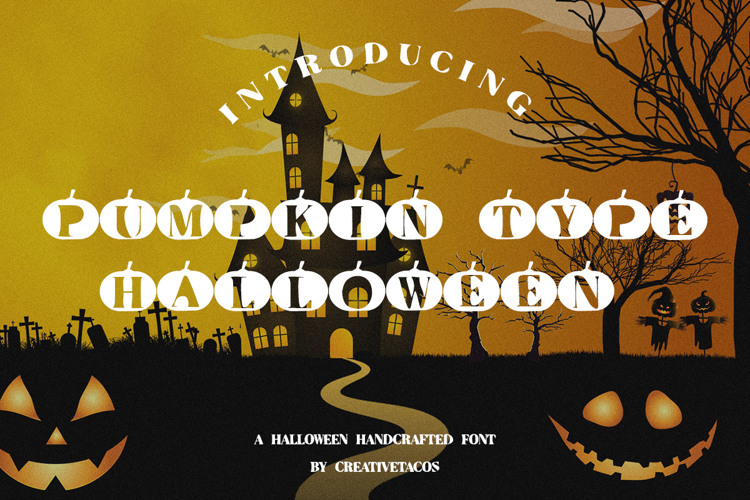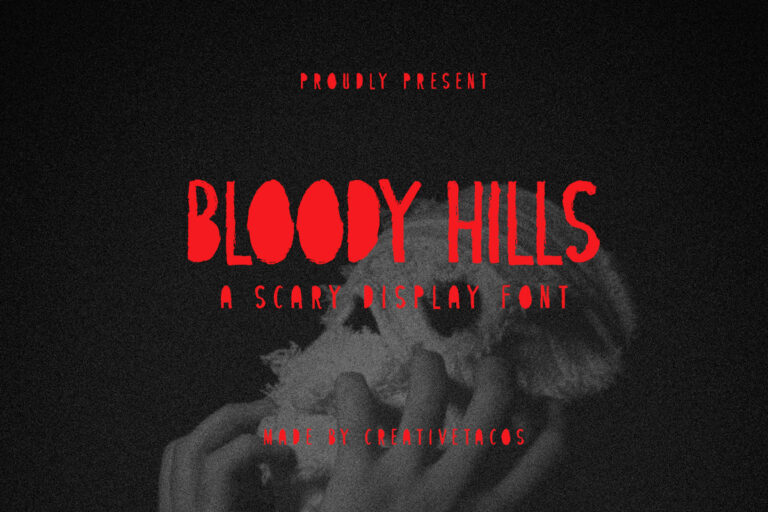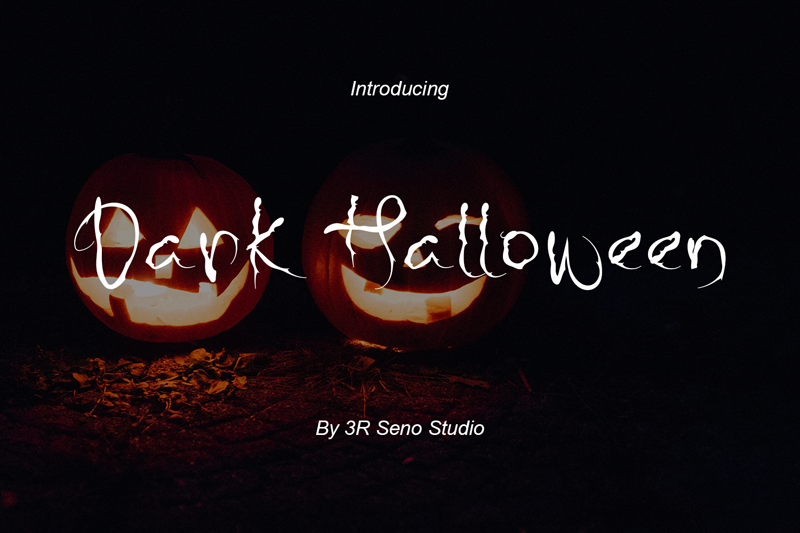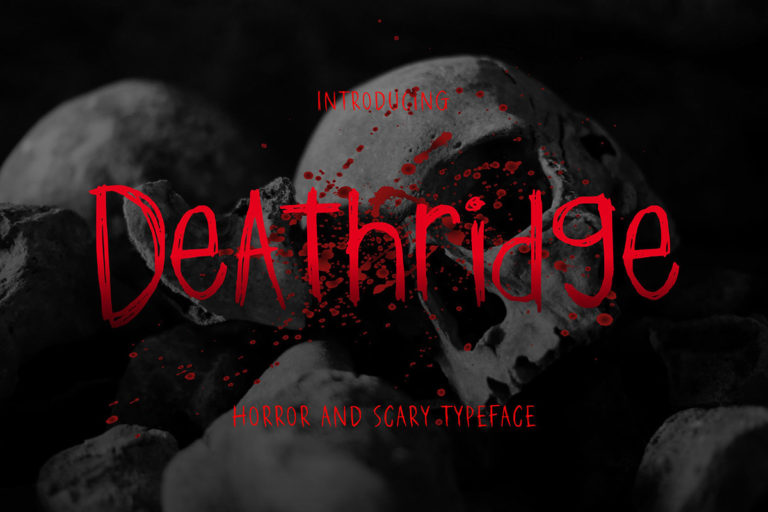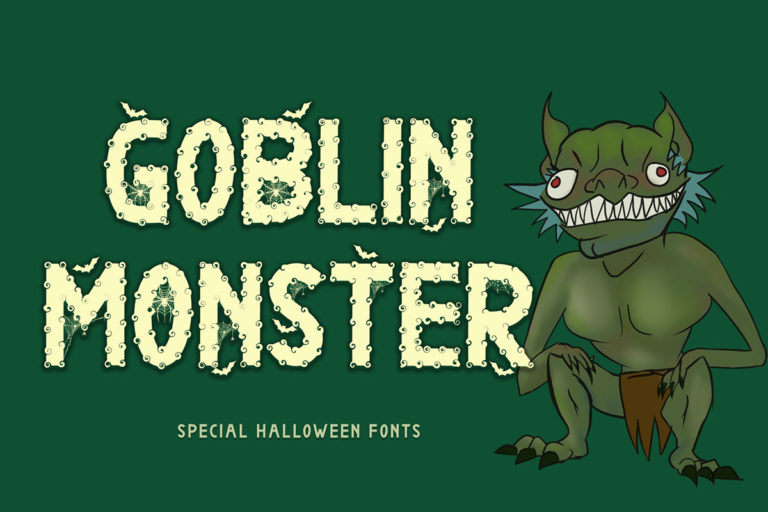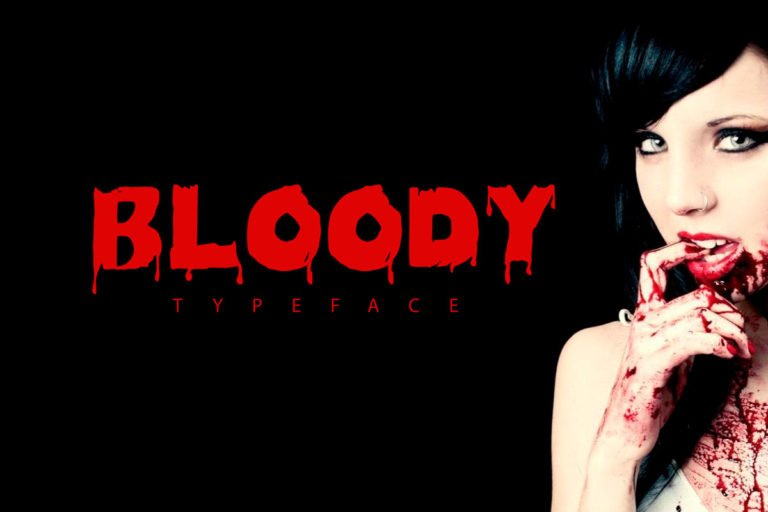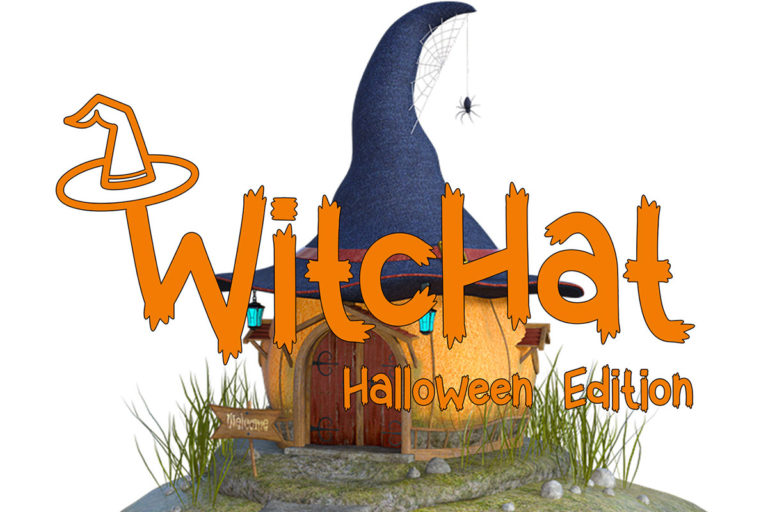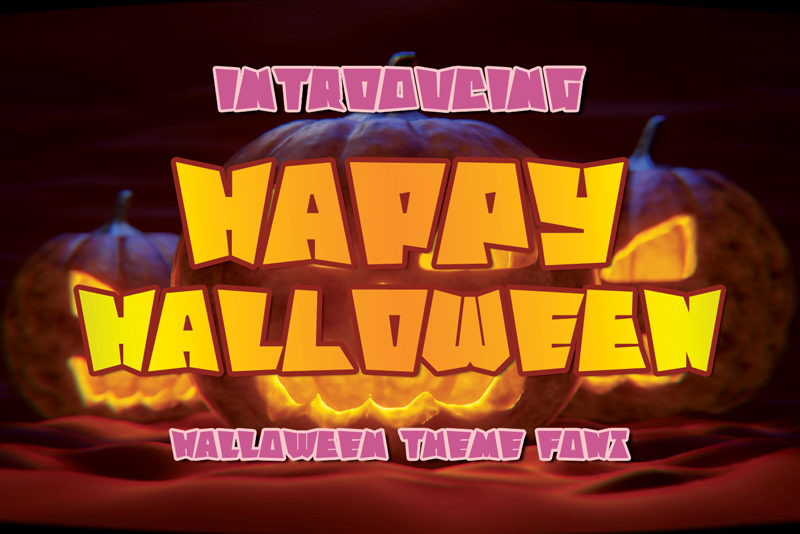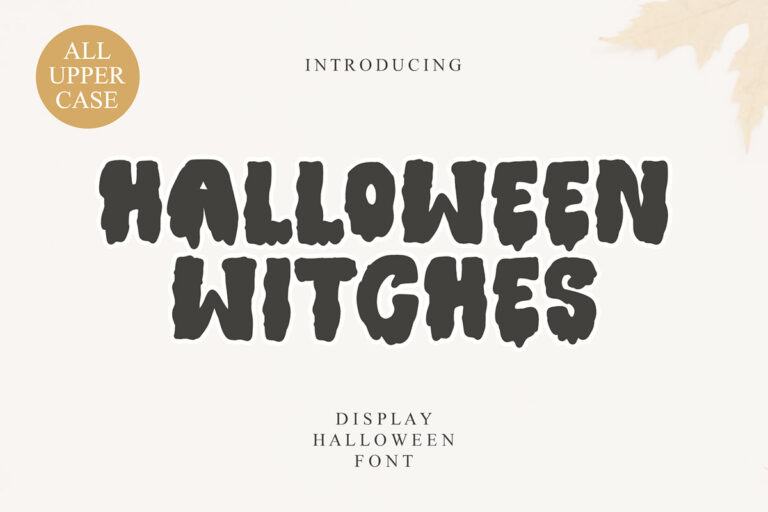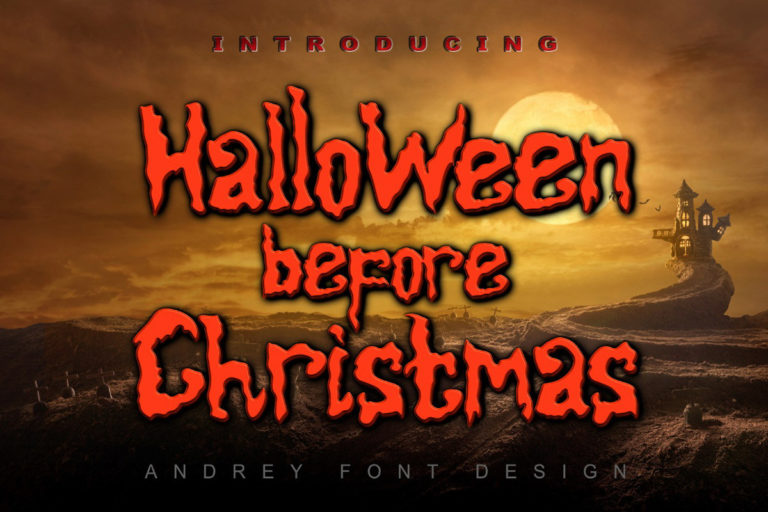
Halloween is a fun and spooky time of the year, perfect for using creative and creepy fonts. Whether you’re making party invitations, decorations, or just adding a Halloween vibe to your projects, the right font can make a big difference. There are many free Halloween fonts available that you can use for your designs without spending any money.
These fonts often have spooky letters, creepy shapes, and eerie styles that capture the Halloween spirit. From scary and bold to playful and fun, there’s a font for every Halloween project. In this post, we’ll share 35 of the best free Halloween fonts to help make your designs stand out.
Designing With Halloween Fonts: Tips and Tricks
Designing with Halloween fonts can be a fun and creative process, but there are a few tips and tricks that can help your projects stand out even more. Whether you're working on party invitations, spooky flyers, or social media graphics, the right font paired with the right design elements can capture the perfect Halloween atmosphere.
- Pair Fonts Carefully: Combining a creepy Halloween font with a simple, easy-to-read font can create balance in your design. Use the Halloween font for titles or main headlines and a clear, readable font for smaller text or details.
- Use Color Wisely: Halloween is known for its signature colors like orange, black, purple, and green. Choose font colors that match your theme and stand out on your background. For a spookier effect, try gradients, shadows, or glow effects.
- Match Fonts with Graphics: Complement your Halloween fonts with themed graphics like pumpkins, ghosts, bats, or haunted houses. This can make your design more cohesive and visually appealing.
- Consider Font Size and Spacing: Large, bold fonts can make a big impact, but be mindful of spacing to ensure your text is still easy to read. Play around with different sizes and space between letters for a more dramatic effect.
- Try Different Styles: Not all Halloween fonts are the same. Some are spooky and eerie, while others are playful and cute. Depending on the vibe you want, you can switch between different styles to fit the tone of your project.
- Test Print Before Finalizing: If you’re using your design for physical products like banners or invitations, print a test copy to see how the font looks in real life. This can help you catch any issues with readability or color contrast.
By following these simple tips, you can make the most out of your Halloween fonts and create eye-catching, spooky designs that capture the Halloween spirit perfectly.
Ghost Fancy Free Halloween Font
Halloween Ghost Fancy Font is a spooky, playful and innovative font that has the potential to bring each of your horror theme ideas to the highest level! It contains uppercase, lowercase and number. Halloween Ghost font looks very awesome for wedding, feminine branding, social media, card, logos, web, branding, stationery, advertisements, product packaging, label, photography, watermark, special events, handmade notes, or just adding a professional touch to any projects!
Pumpkin Type Halloween Font
Pumpkin Type Halloween Font is a scary, weird and creepy font that will add a touch of horror to any design project. This font looks very awesome for wedding, feminine branding, social media, card, logos, web, branding, stationery, advertisements, product packaging, label, photography, watermark, special events, handmade notes, or just adding a horror touch to any projects!
Halloween Grunge Display Font
Halloween Grunge Display Font is a weird, creepy and playful font perfect for any design you wish to bring your horror design to life.
Drip October Font
Drip October is a dripping marker font perfect for use in poster, displays, branding projects, logos, signage, posters, invites and more. This is a beautiful textured marker font which gives naturally textured strokes.
Spooky Zombie Display Free Halloween Font
Introducing Spooky Zombie Display Font, an incredible, creepy and scary Halloween font that will help create thrilling Halloween design projects!
The Halloween - Free Spooky Font
Halloween Script Font
October Scary Fancy Free Halloween Font
October Scary Fancy Font is a horrify, spooky and smart-looking font that will help your creative Halloween-themed ideas and will make them stand out.
Noganas Display Free Halloween Font
Noganas Display Font is a creepy, scary and unique halloween font that will help create thrilling forthcoming halloween designs projects.
Halloweendy - Free Halloween Font
Endless Mousemade - Free Halloween Font
Here’s a Endless Mousemade Typeface, a spooky, scary and horror looking mousemade font which will help you take your halloween designs to the professional level.
Halloween Sparkle Font
Introducing Halloween Sparkle, an elegant calligraphy typeface with a spooky twist! Perfect for all your Halloween-themed projects, this font features rough edges that add to its eerie charm. The font’s unique design is sure to catch the eye and leave a lasting impression on your audience.
Halloween Before Christmas Handwritten Font
Halloween Before Christmas Handwritten Font is a spooky and incredibly distinct handwritten font, it features a varying baseline, smooth lines, gorgeous glyphs.
Scarynight Halloween
Scarynight Halloween is the latest style letters are perfect for wall displays, wedding invitations, social media post logos, advertisements, product packaging, product designs, labels, photography, watermarks, invitations, stationery, and any project that requires taste handwriting.